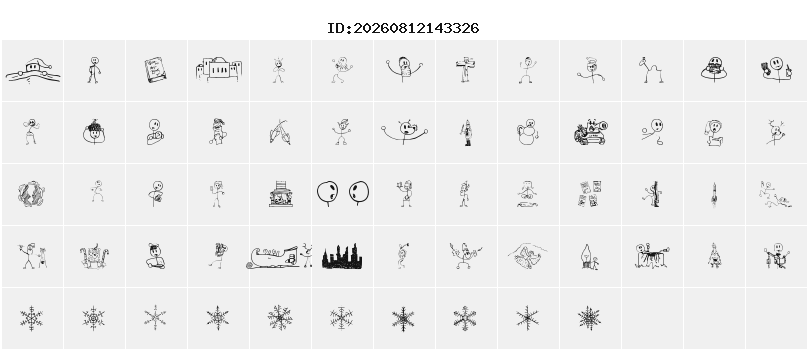
Risus LCB Kringlebats Preview
• Font Name: Risus LCB Kringlebats
• Designer: S. John Ross
• Description: Stickmen and sundries from the Risus book "A Kringle in Time" by S. John Ross